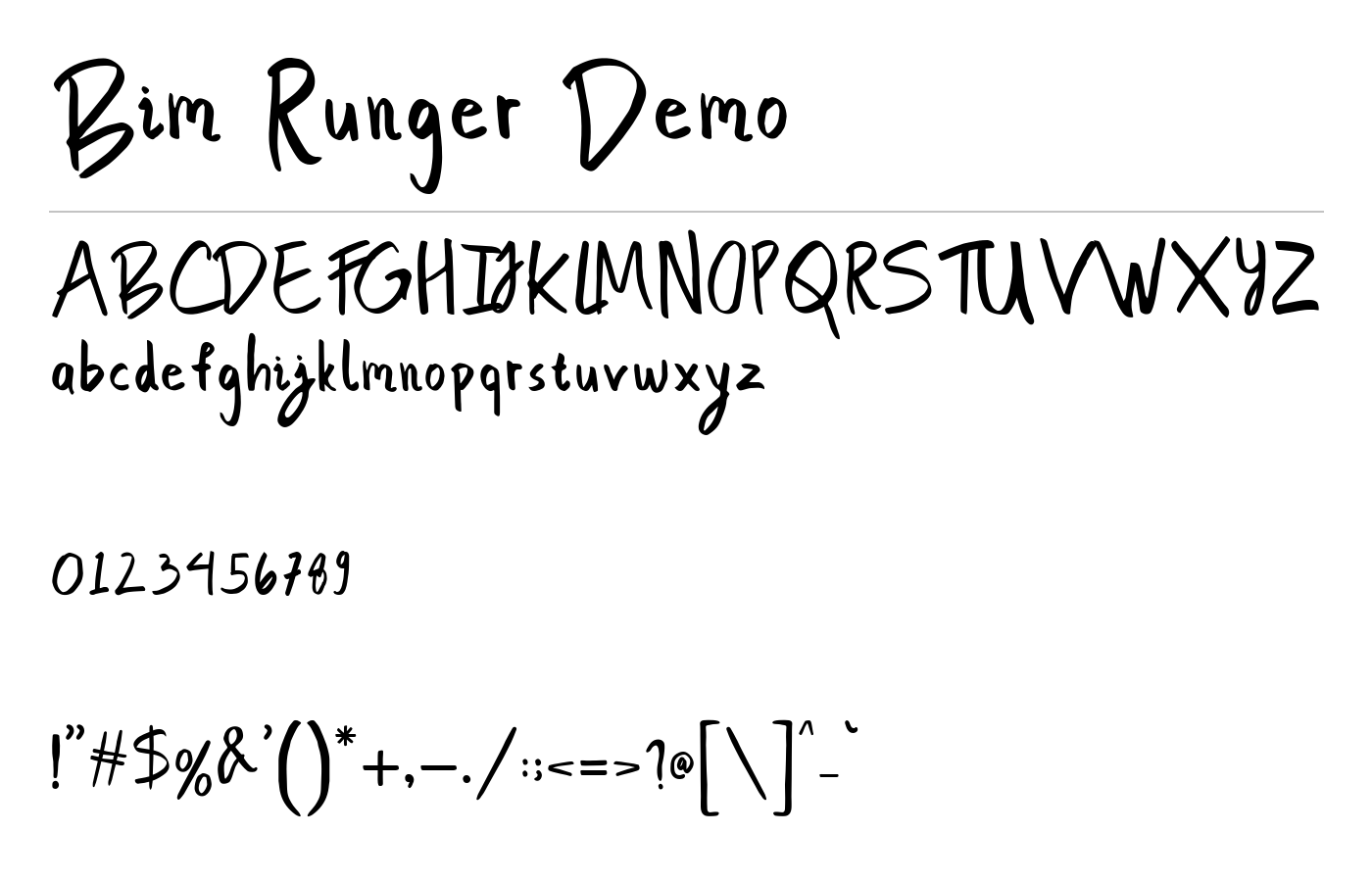
Bim Runger Demo is a playful, hand-drawn sans serif font with a casual, informal feel. Its irregular strokes and lively shapes create a friendly and approachable personality, making it perfect for creative projects, children's materials, or any design seeking a warm, personal touch. This font works well in logos, headlines, and packaging where a unique, human-driven style is desired.
Bim Runger Demo Font
About Bim Runger Demo Font
| Font family | Bim Runger Demo Font |
| Designer | Suandana Ipandemade |